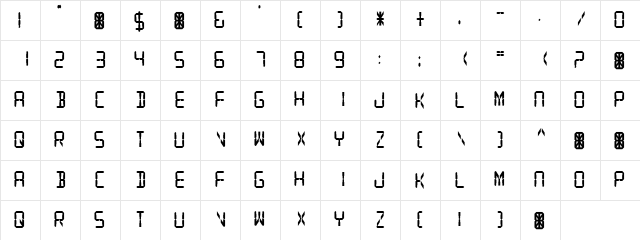
Digital Readout Thick Upright Regular
Design Context for Digital Readout Thick Upright Typeface
Digital Readout Thick Upright channels digital-age aesthetics through its sharp, structured letterforms — ideal for brands that want to signal innovation.
Pro Tip: Use Digital Readout Thick Upright in combination with a neutral sans for body text. Let it define the brand voice in headlines while keeping reading comfortable elsewhere.